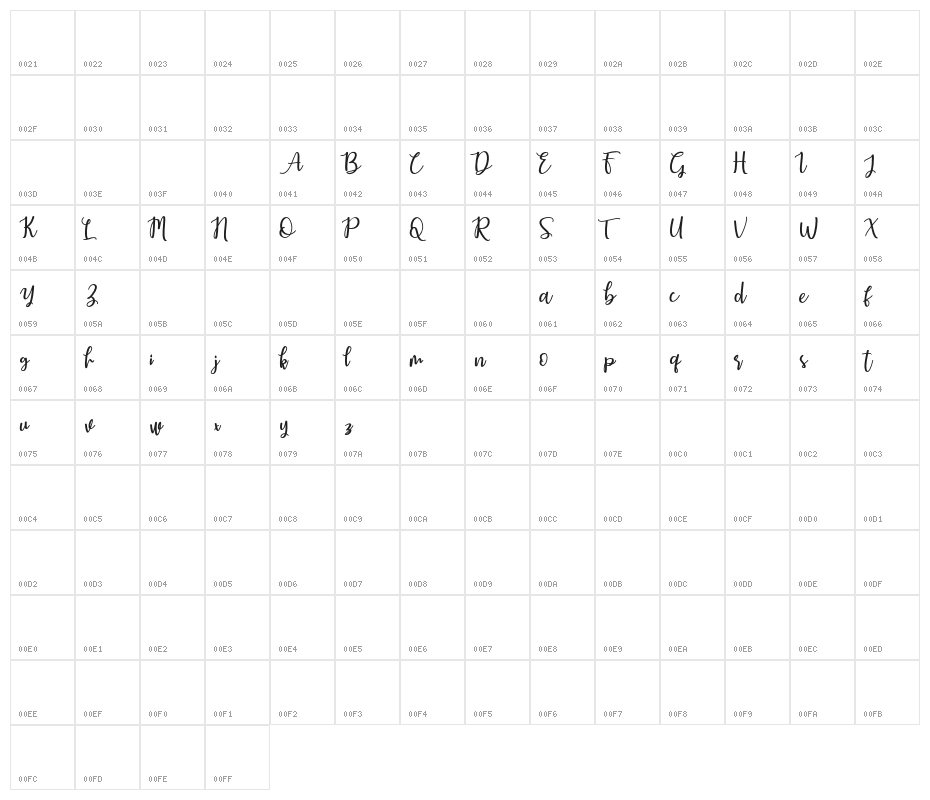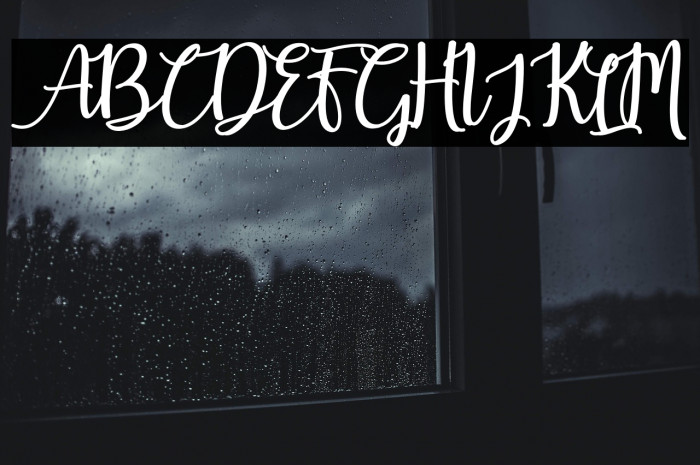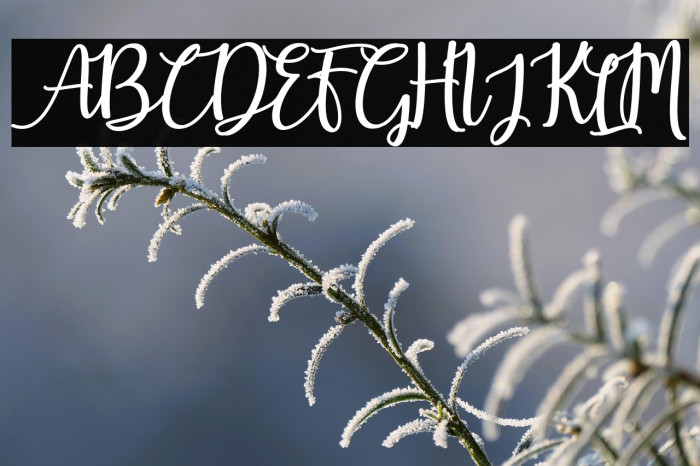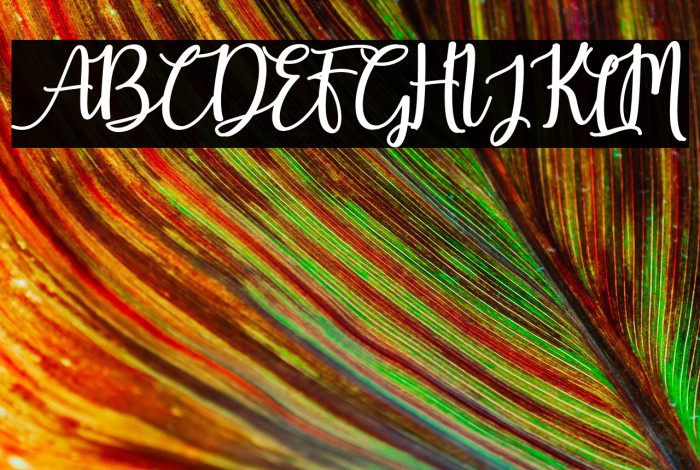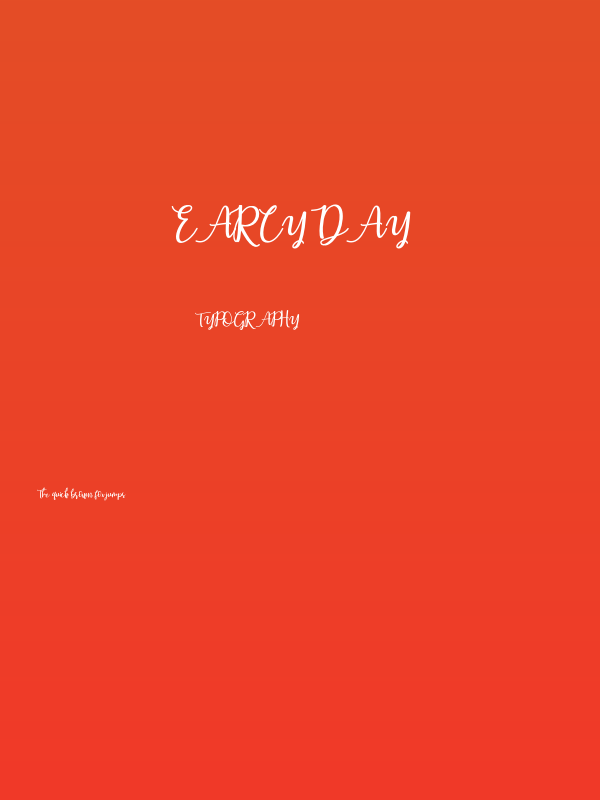
Earcy Day Font
Earcy Day Description
This font features a flowing, cursive style with elegant loops and swashes, creating a sense of movement and grace. The uppercase letters are bold and prominent, with distinctive flourishes that add a touch of sophistication. The lowercase letters maintain a consistent style, with smooth, rounded forms that enhance readability while preserving the decorative nature. The numbers and special characters are designed to complement the overall aesthetic, ensuring a cohesive look across all text elements. This font is ideal for projects that require a personal, artistic touch, such as invitations, greeting cards, or branding materials.
| Proposed Projects | Ideal for invitations, greeting cards, branding, and artistic projects. |